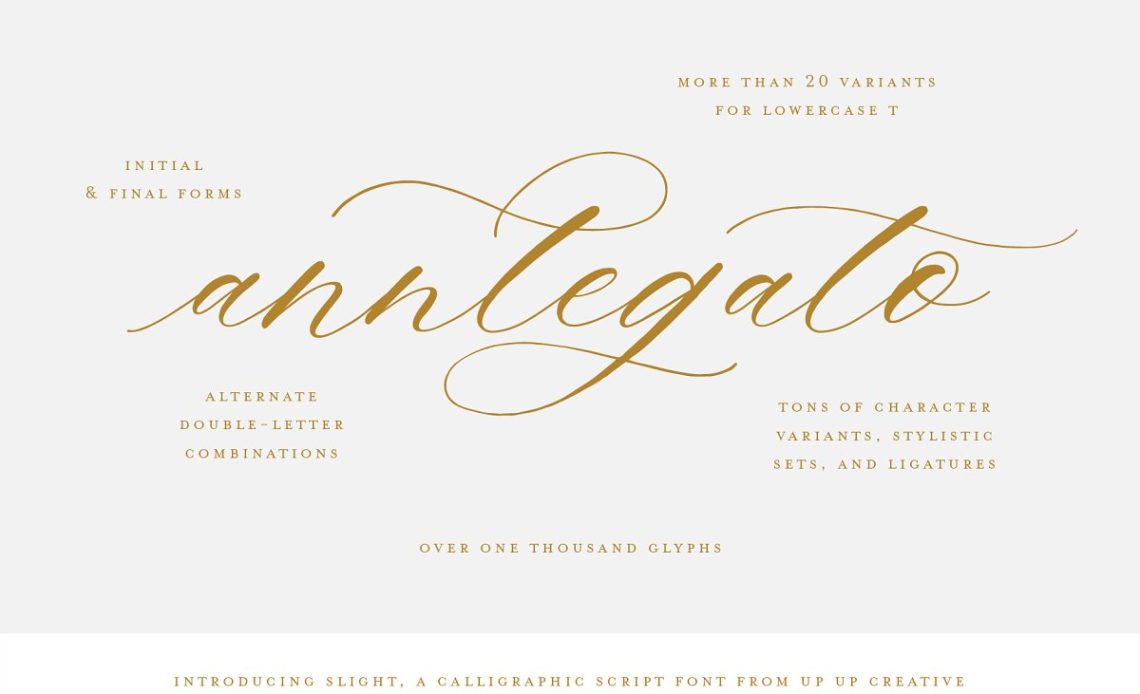
Introducing Slight, a stunning calligraphy font created by Julie Green that is perfect for anyone looking to add elegance and style to their designs. With more than 1000 glyphs, Slight is full of features that make it versatile and easy to use.
Slight's hand-lettered design with a heavy right slant makes it an ideal choice for invitations, branding, and editorial design. Its contextual alternates, stylistic alternates, initial and final forms, multiple alternate glyphs for many letters, and six ampersand styles, make it easy to create unique and captivating designs. And with its multilingual support, including multiple currency symbols, Slight is perfect for designers and creatives from all over the world.
But perhaps the most exciting thing about Slight is that all of these features are included in just one single font file. Accessing these features is easy with OpenType-savvy programs like Adobe Illustrator and Adobe InDesign. Even Microsoft Word and similar programs can access most of these awesome features with a bit of help from the advanced tab of Word's font menu.
With Slight, you'll be able to create layouts and compositions with ease, thanks to its multiple versions of all ascending and descending letters. This font is perfect for anyone who wants to add a touch of elegance and sophistication to their designs.